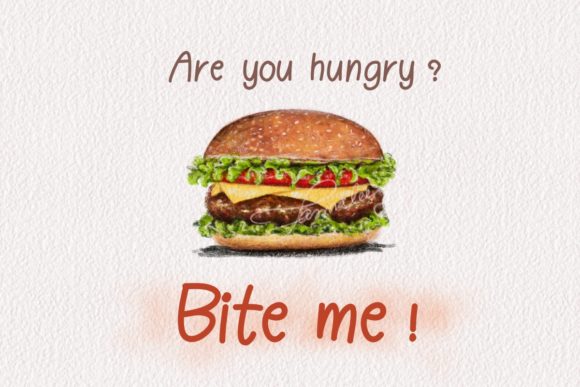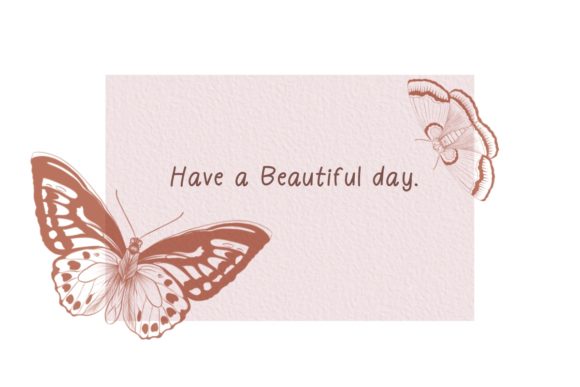
Introduction to Oskar Font
Have you ever stared at a blank canvas, wondering where to start your next creative project? For many of us, the key to unlocking our inspiration lies in the simple things – a beautiful font, a delicate brush stroke, or a splash of color. And that’s exactly where the Oskar Font comes in, a delightful and natural handwritten font that brings a touch of whimsy to your designs.
Whether you’re working on a high-quality brochure, a free download template, or a design resource for a client, the Oskar Font is a valuable addition to your toolkit. Its friendly and cute aesthetic makes it perfect for projects where you want to convey a sense of approachability and transparency, such as with a product launch or a social media campaign.
- Features a unique, modern design style that can elevate any creative project.
- Includes a comprehensive character set, including uppercase and lowercase letters, numbers, and punctuation.
Honest Review: Oskar Font
I recently stumbled upon the Oskar Font while searching for a unique design resource for a creative project. Initially, I was drawn to its elegant and modern feel, perfect for a high-quality design.
Here are a few things that work well with the Oskar Font:
- ✨ Its versatility in usage, suitable for a variety of design applications.
- ✨ The font’s clear and legible characters, making it perfect for body text and headings.
- ✨ The availability of a transparent background, allowing for seamless integration into any design project.
- ⚠️ The font’s limited character set, which may require additional font pairing for certain design projects.
- ⚠️ Some users may find the font’s modern style too trendy or overused.
Overall, I’m impressed with the Oskar Font’s design and functionality. It’s a valuable addition to any designer’s toolkit, especially for those seeking a high-quality, free download for their creative project.
Oskar Font
Oskar Font is a high-quality design resource ideal for creative projects that require a unique and eye-catching look. With its transparent background, this font is versatile and can be easily integrated into various design tools.
For optimal results, use Oskar Font in combination with other design elements to create a visually appealing design. Experiment with different font sizes, colors, and styles to find the perfect balance for your creative project.
Oskar Font is suitable for various design projects, including:
- UI/UX design
Alternatives to Oskar Font
Montserrat is a popular sans-serif font perfect for creative projects requiring a high-quality, modern design. It’s ideal for use in headings and titles, and its clean lines make it suitable for both print and digital design. Montserrat is available for free download and is a great alternative to Oskar Font for designers seeking a more versatile font.
Compared to Oskar Font, Montserrat offers a more extensive range of font weights and styles, making it a more comprehensive design resource.
Open Sans is a highly legible sans-serif font suitable for a wide range of design applications. It’s particularly effective for use in body text and is available for free download. Open Sans is a great choice for designers seeking a high-quality, transparent background font that won’t distract from the content.
Unlike Oskar Font, Open Sans offers a more neutral design aesthetic, making it suitable for a variety of creative projects and industries.
Lato is a modern sans-serif font designed for use in digital and print media. It’s ideal for headings and titles, and its clean, elegant design makes it suitable for a wide range of creative projects. Lato is available for free download and offers a more extensive range of font weights and styles compared to Oskar Font.